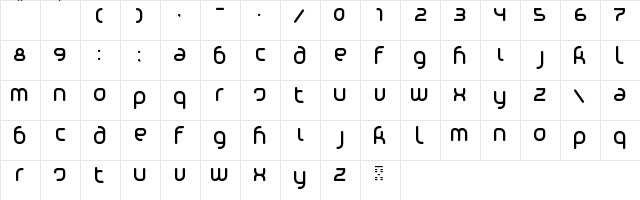
Phino Tight Regular Font Preview
Phino Tight Regular
Phino Tight Regular Font Details
Design Context for Phino Tight Typeface
Phino Tight is a composed and adaptable typeface that performs quietly and consistently across a wide range of design contexts.